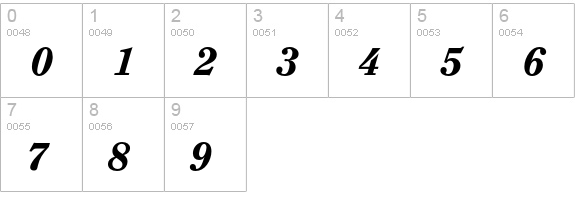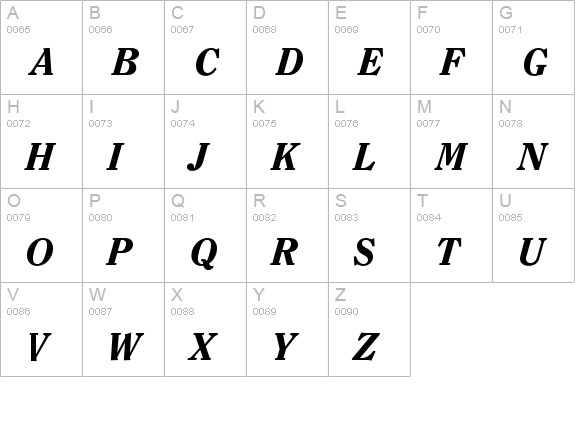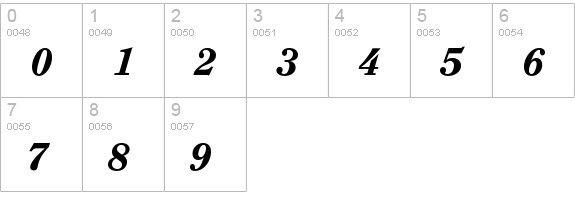
ClearfaceEF-HeavyItalic Font Details
ClearfaceEF-HeavyItalic is a bold and elegant typeface that exudes sophistication and charm. The heavy italic style adds a touch of flair and personality to any design project, making it perfect for headlines, titles, and branding materials. The distinctive letterforms are sleek and modern, while the italicized slant creates a sense of movement and dynamism. This font is not only visually striking but also highly versatile, suitable for both print and digital applications. Whether you are designing a magazine layout, creating a logo, or crafting a poster, ClearfaceEF-HeavyItalic will help you make a bold statement and capture your audience's attention. The best part is that ClearfaceEF-HeavyItalic is available for free download at FontsMarket.com. You can easily access this stylish font and enhance your projects with its unique aesthetic and professional quality. Don't miss out on the opportunity to elevate your designs with ClearfaceEF-HeavyItalic - get your free copy now!